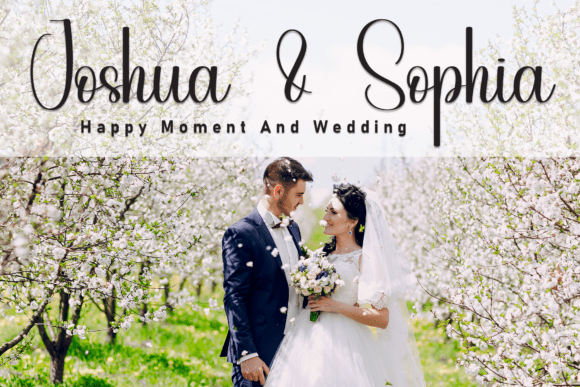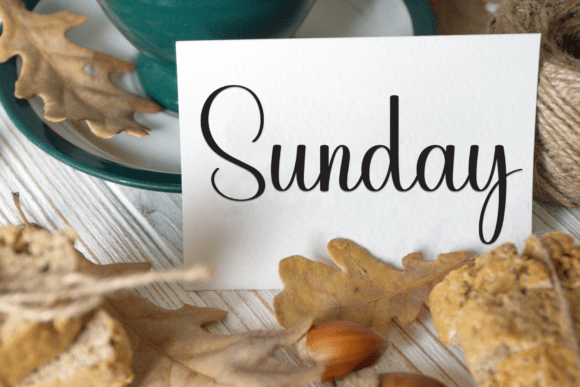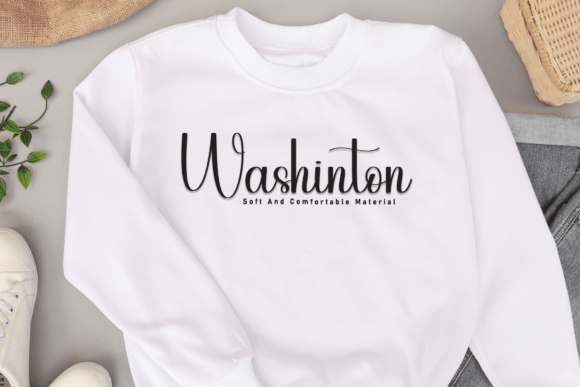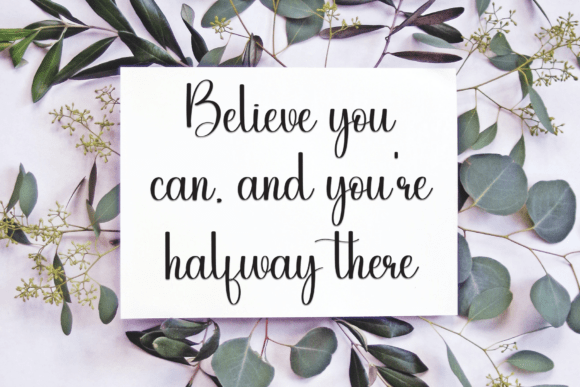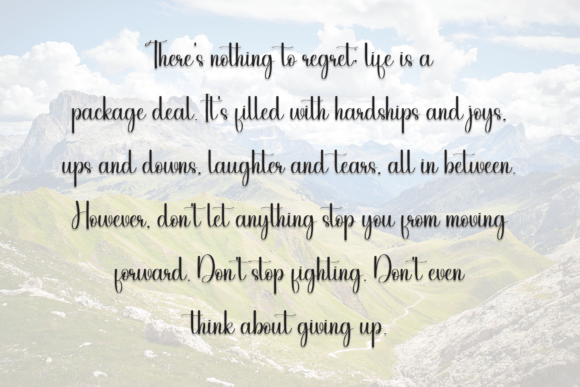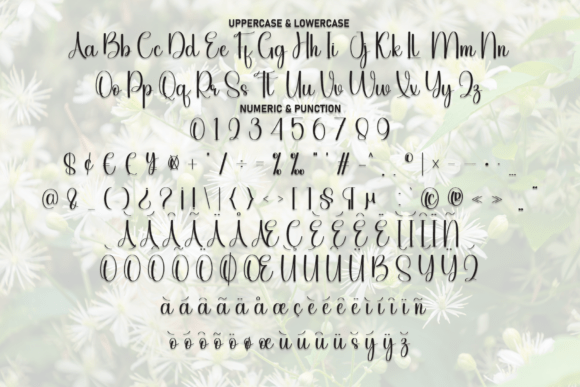
Discover the Whimsical Charm of Angelia Font
Are you on the hunt for a font that exudes warmth, cheerfulness, and a dash of magic? Look no further than Angelia Font, a handcrafted display font that is sure to captivate your audience with its unique charm. In this article, we’ll dive into the enchanting world of Angelia Font and explore its features, uses, and benefits for designers and crafters.
A Delightful Fusion of Warmth and Cheerfulness
Angelia Font is a masterful blend of warmth and cheerfulness, making it the perfect choice for designs that require a personal touch. This font is carefully crafted to evoke a sense of joy and playfulness, with each letter and curve designed to bring a smile to the viewer’s face. Whether you’re creating wedding invitations, greeting cards, or social media graphics, Angelia Font is sure to add a touch of whimsy and delight to your designs.
Captivating Charisma and Unique Personality
What sets Angelia Font apart from other fonts is its captivating charisma and unique personality. This font is not just a collection of letters and symbols; it’s a character in its own right, with a distinct voice and style that shines through in every design. With Angelia Font, you can add a touch of personality to your designs and make them stand out from the crowd.
Ideal for Wedding Invitations and Greeting Cards
Angelia Font is particularly well-suited for wedding invitations, greeting cards, and other designs that require a personal and intimate touch. Its playful and whimsical nature makes it perfect for conveying emotions and sentiments in a way that feels warm, fuzzy, and genuine. Whether you’re a designer or a crafter, Angelia Font is an excellent choice for creating beautiful and meaningful designs that will be treasured for years to come.
Angelia Font is not just limited to wedding invitations and greeting cards; it’s a versatile font that can be used in a wide range of design projects. From social media graphics and blog posts to posters and flyers, Angelia Font can add a touch of magic and whimsy to any design. Its playful allure makes it perfect for designs that require a bit of personality and flair, such as children’s books, games, and educational materials.
So, what are the benefits of using Angelia Font for designers and crafters? Here are just a few:
- Unique and eye-catching designs: With Angelia Font, you can create designs that stand out from the crowd and grab the viewer’s attention.
- Emotional connection: Angelia Font is designed to evoke emotions and create a sense of connection with the viewer, making it perfect for designs that require a personal touch.
- Versatility: Angelia Font can be used in a wide range of design projects, from digital designs to print materials.
In conclusion, Angelia Font is a handcrafted display font that is sure to captivate your audience with its unique charm and whimsical nature. With its delightful fusion of warmth and cheerfulness, captivating charisma, and playful allure, Angelia Font is the perfect choice for designers and crafters who want to add a touch of magic to their designs. Whether you’re creating wedding invitations, greeting cards, or social media graphics, Angelia Font is sure to bring a joyful sparkle to your creative designs.